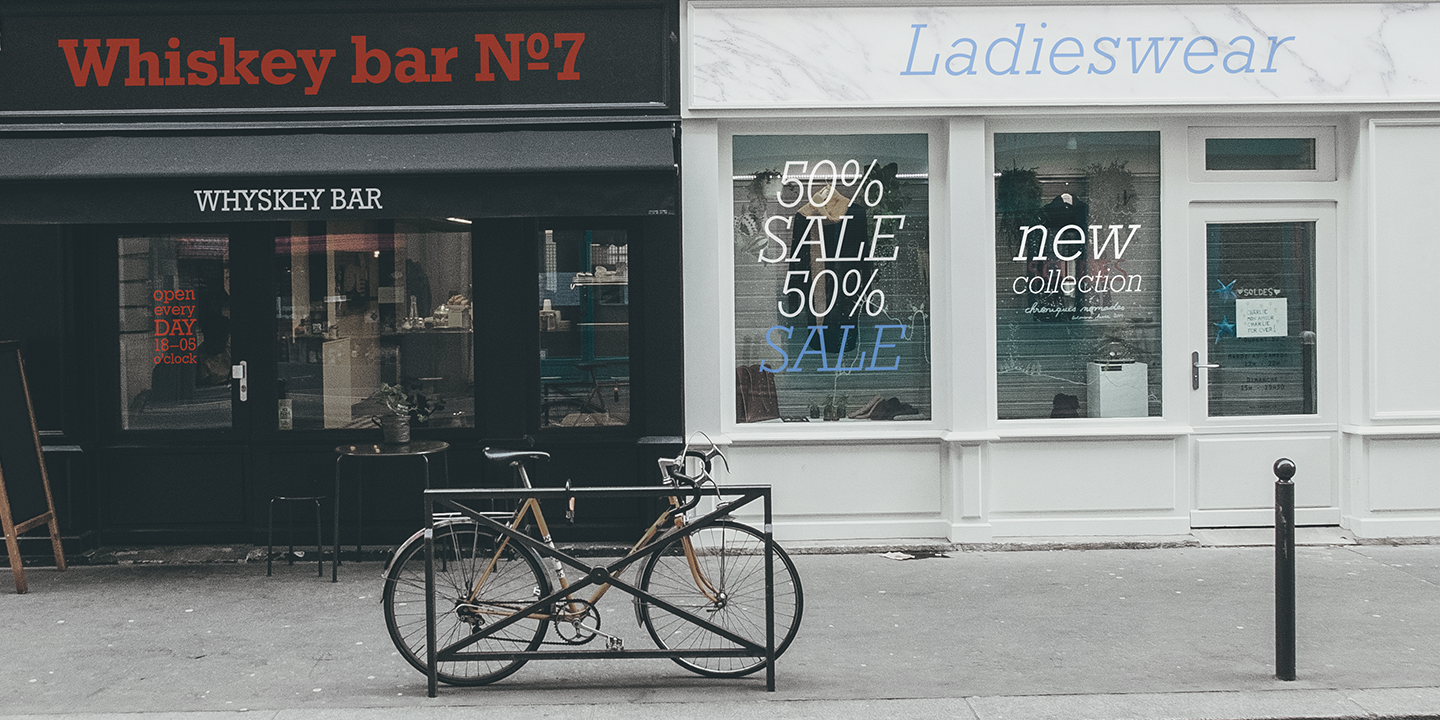
Geometric Slabserif 712 Font is ideal for industrial design companies, architectural documentation, engineering firm materials, technical publication layouts, modernist branding projects, construction industry communications, precision manufacturing signage, and contemporary structural design presentations.
What makes Geometric Slabserif 712 Font exciting is its structural precision that perfectly combines geometric modernism with slab serif stability through mathematically refined letterforms. This technical typeface features clean geometric construction with robust slab serifs that create exceptional readability while conveying engineering accuracy and architectural sophistication, making it perfect for projects requiring both technical credibility and design innovation in their professional communications.
The Geometric Slabserif 712 Font family includes multiple weights from light to black, plus comprehensive character sets and technical typography elements that enhance the geometric aesthetic with engineering-quality styling and precision design elements for industrial applications.
This precise typeface delivers outstanding technical authority and geometric sophistication, making Geometric Slabserif 712 Font Free Download an essential resource for engineering and architectural design projects. The font's structural character makes it ideal for firms wanting to communicate mathematical precision and design excellence in their technical materials. Architecture studios and engineering consultancies particularly value its ability to convey systematic thinking and technical competence instantly to professional audiences. The geometrically designed letterforms ensure optimal legibility while preserving the sophisticated appeal of precision engineering across all applications from technical manuals to architectural presentations. Whether you're creating documentation for structural engineering projects or developing branding for modernist design firms, this font provides the perfect combination of geometric accuracy and commercial professional appeal. Creative professionals consistently choose this typeface for projects requiring that ideal synthesis of mathematical precision and contemporary design standards, making it invaluable for technical communications that celebrate both engineering excellence and modernist aesthetic principles in today's precision-driven industrial landscape.